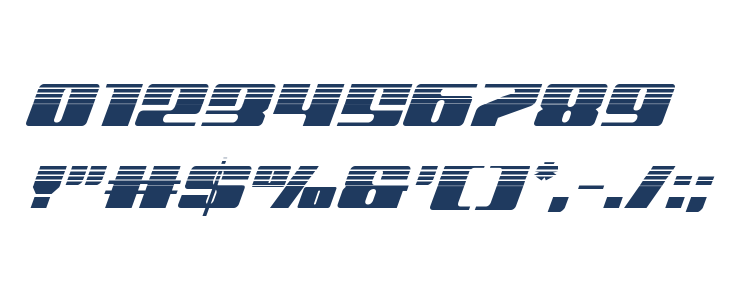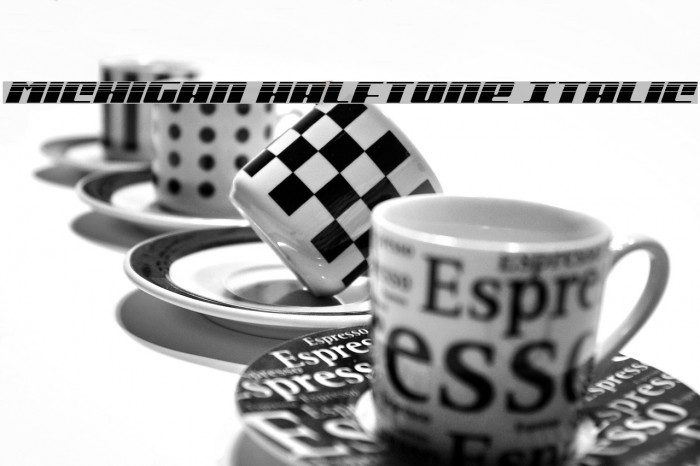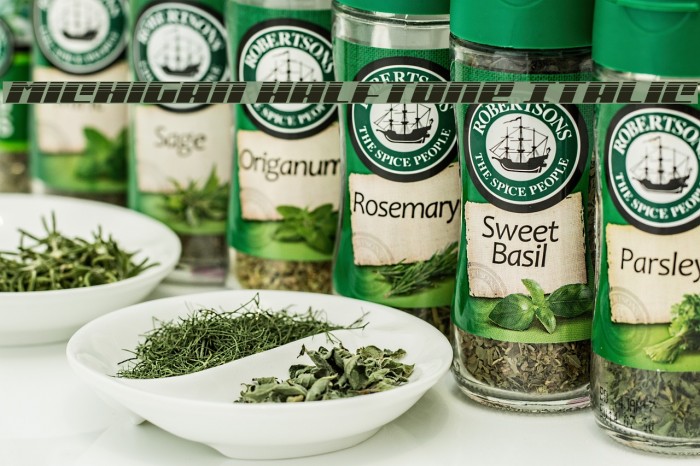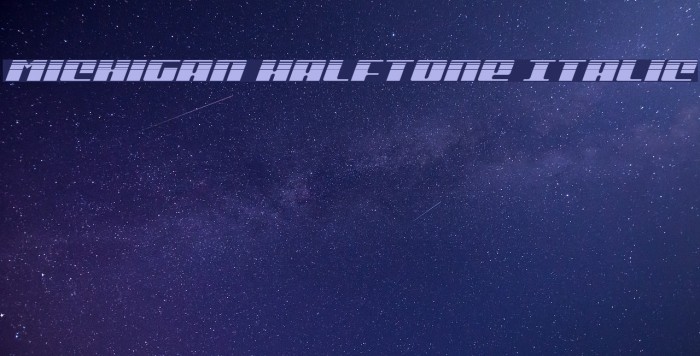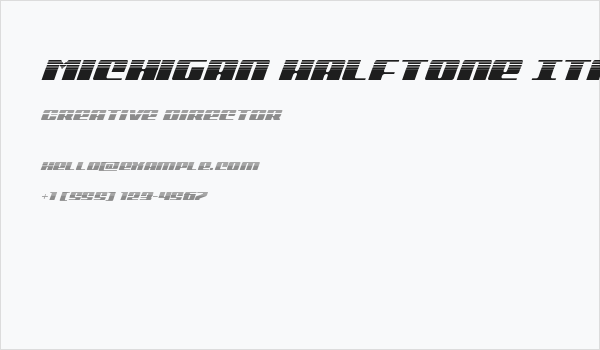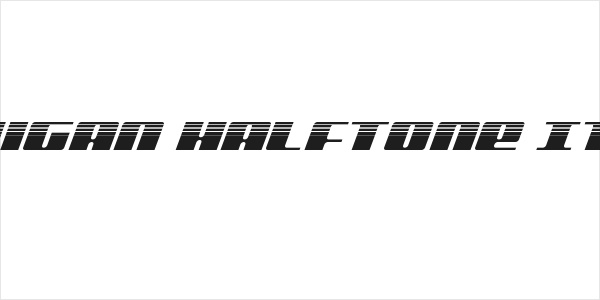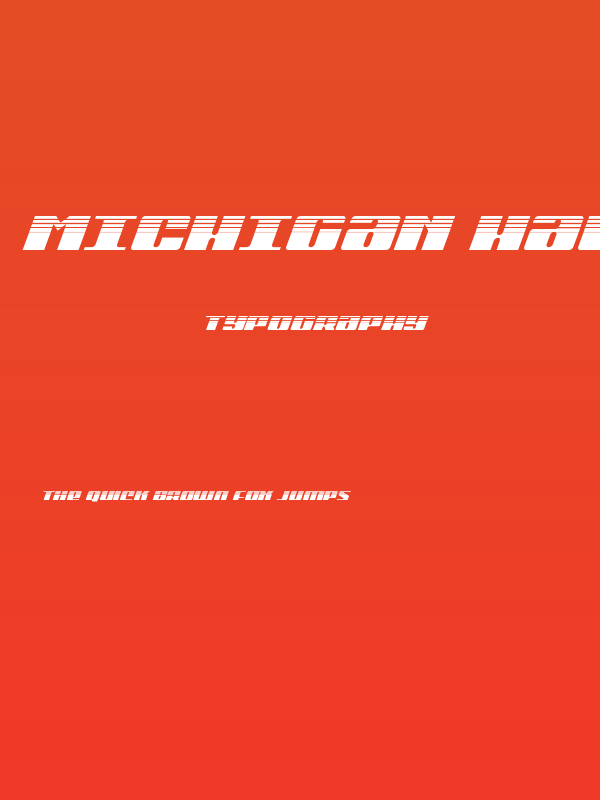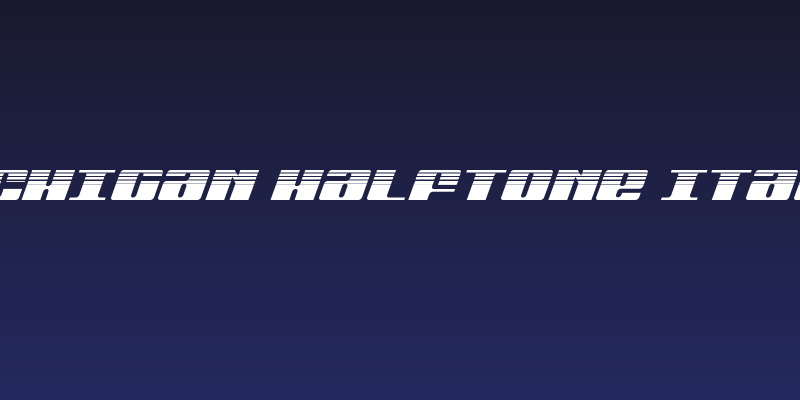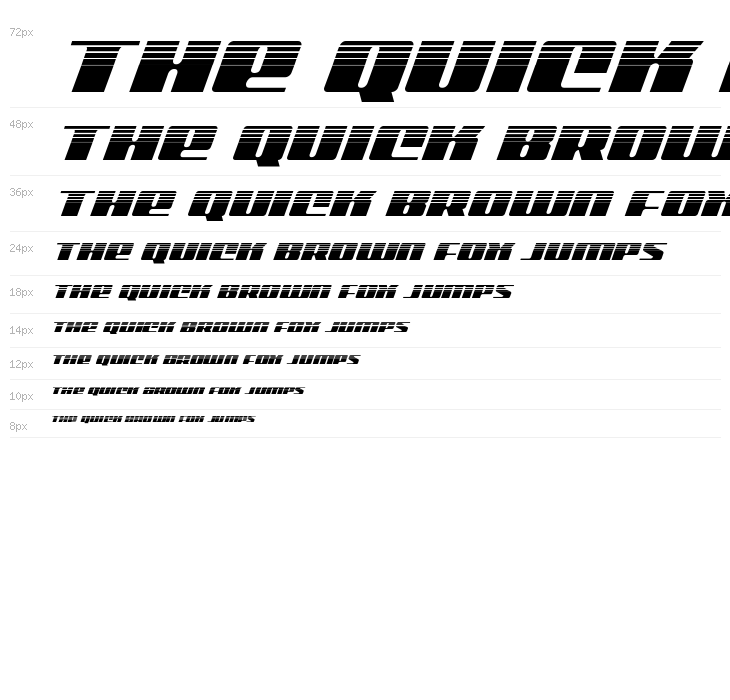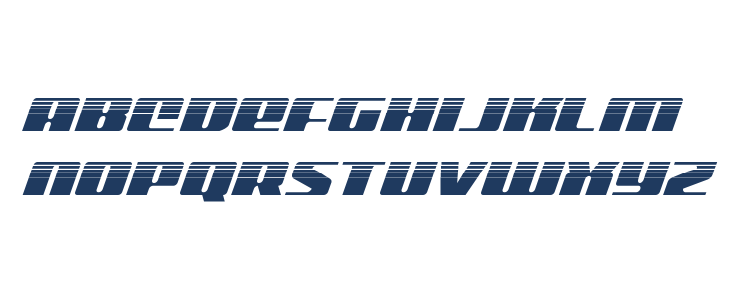
Michigan Halftone Italic Font
Michigan Halftone Italic Description
This font features a bold and dynamic design with a halftone effect that gives it a unique, modern appearance. The characters are italicized, adding a sense of motion and energy. The uppercase and lowercase letters maintain a consistent style, with sharp angles and a futuristic aesthetic. The numbers and special characters are equally bold, ensuring a cohesive look across all text elements. The halftone pattern adds texture and depth, making it stand out in digital and print media.
| Proposed Projects | Ideal for sports branding, dynamic posters, futuristic designs, and digital media projects. |